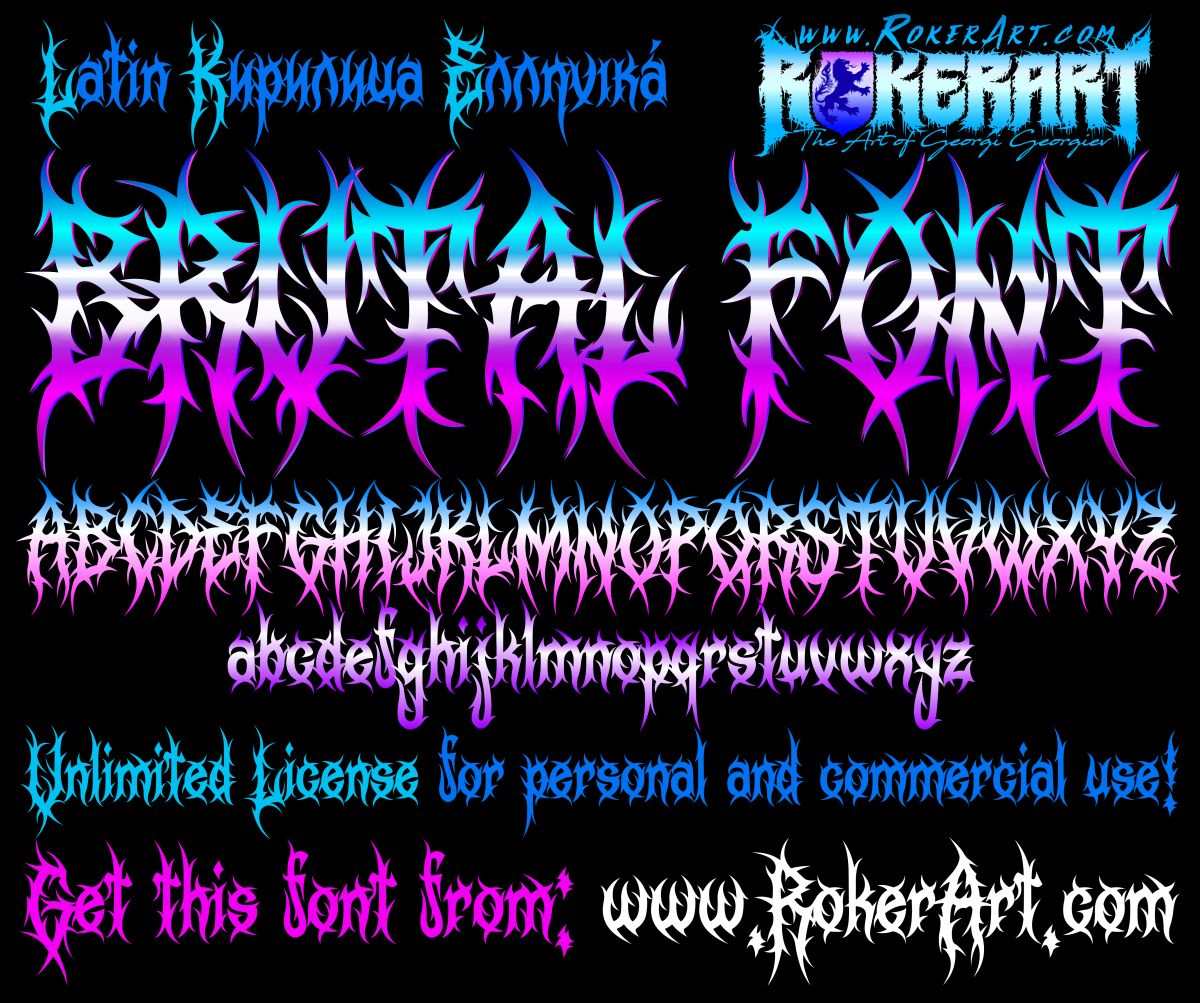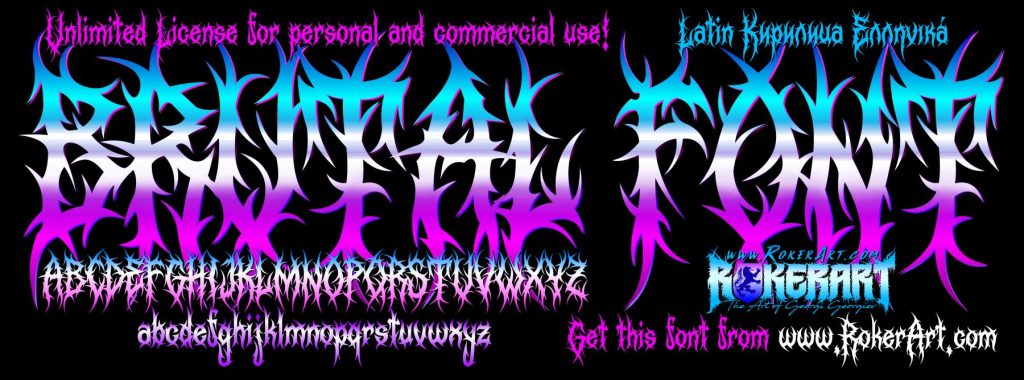
Brutal Font
RokerArt presents: Brutal Font!
Here is a really brutal font with an aggressive look that can serve as an excellent base for creating your future logo design! You can easily and quickly just write the name you want, as well as modify the size, color, and shape of the letters to get the desired result! Make an aggressive logo for your merchandise art! The letters are detailed and are enough to have an effective design that makes an impact! The font contains all the necessary letters, numbers, symbols, and punctuation marks to write your lyrics, captions on pictures, and photos. You can also use this font in your video content; it is light and optimized enough to even place it on your website! No matter if you are looking for death metal, black metal, thrash metal, heavy metal, or just an aggressive fashion look, you can successfully use this font for your new design!
The font contains Extended Latin, Cyrillic, and Greek letters!